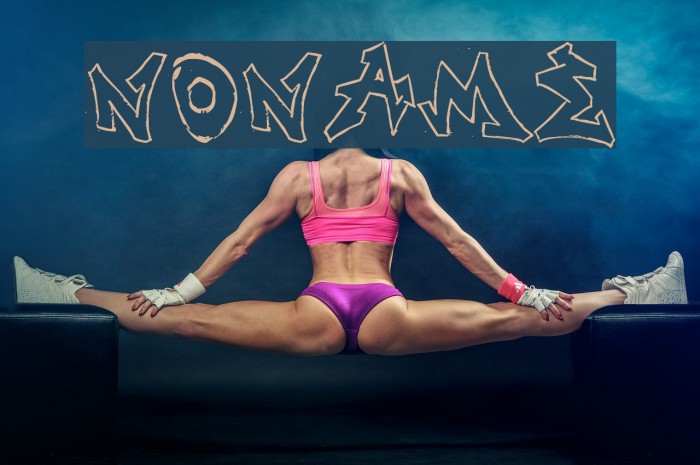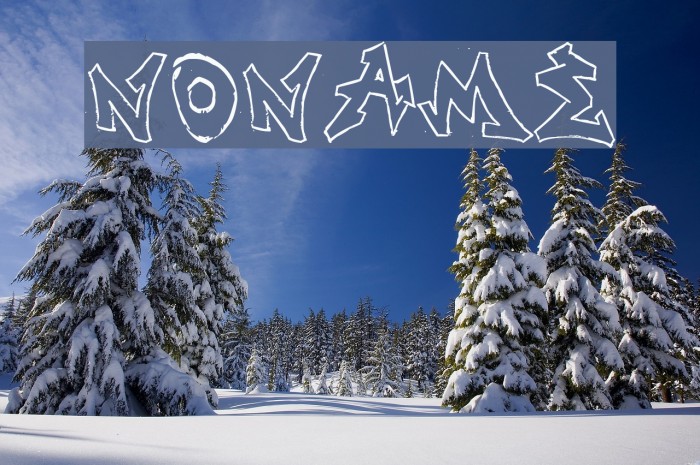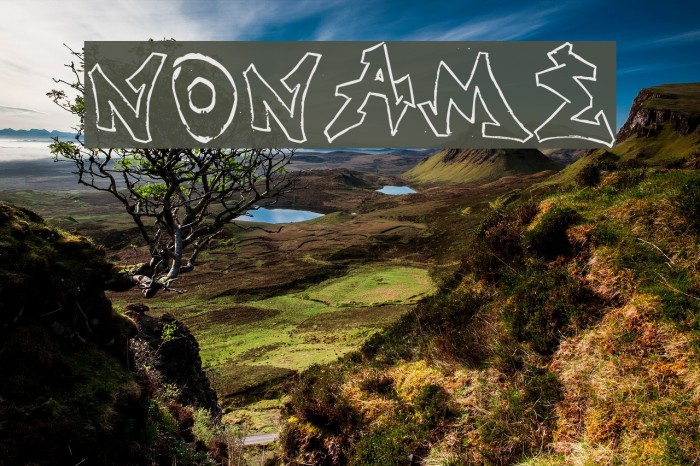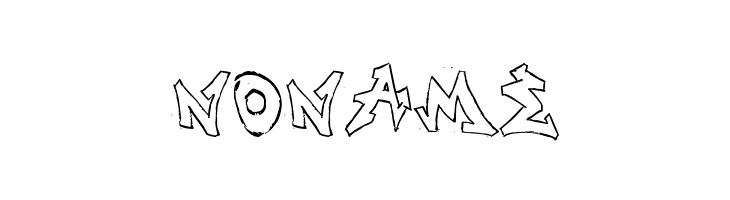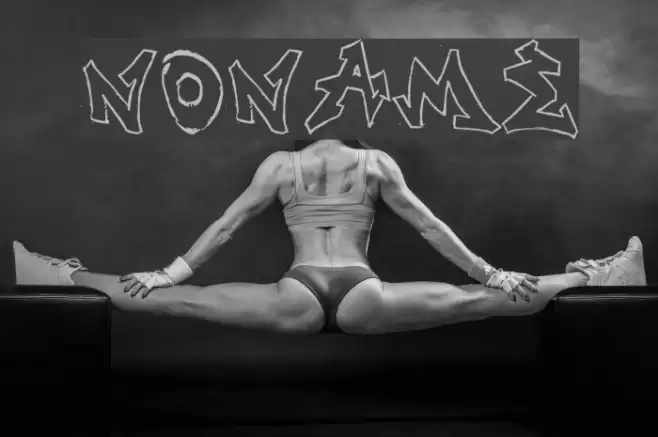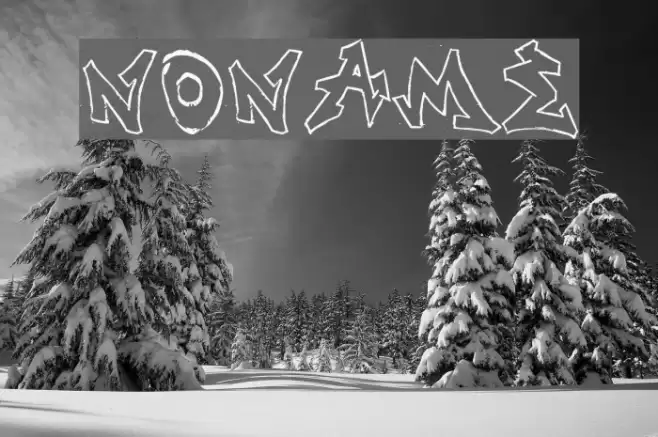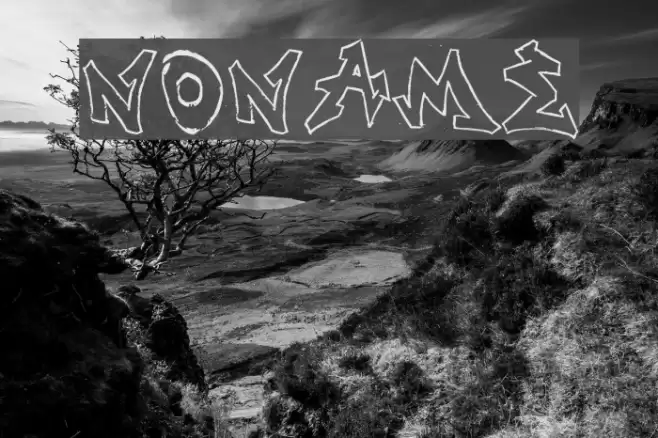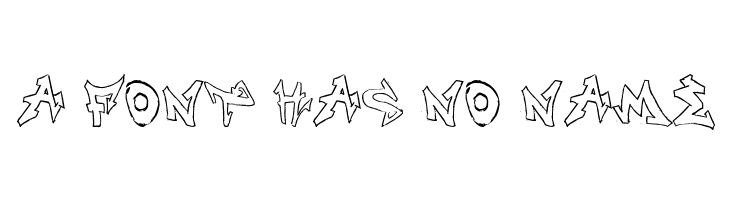
NONAME Font
This font features a bold, graffiti-inspired style with sharp, angular lines and a dynamic, edgy appearance. The uppercase letters are highly stylized, with exaggerated serifs and a sense of movement that suggests urban street art. The lowercase letters maintain the same energy, offering a cohesive look across the alphabet. The numerals are more traditional, providing a stark contrast to the letters, with clean lines and a classic serif style. Special characters are included, matching the boldness of the uppercase letters. This font is ideal for projects that require a strong, rebellious aesthetic.
A bold, graffiti-inspired font with sharp, angular lines and an urban edge.
- Proposed Projects: Perfect for street art posters, music album covers, urban-themed branding, and edgy graphic designs.
- Overall Style: Modern, Urban
- Use Case: Logos, Posters, Headlines